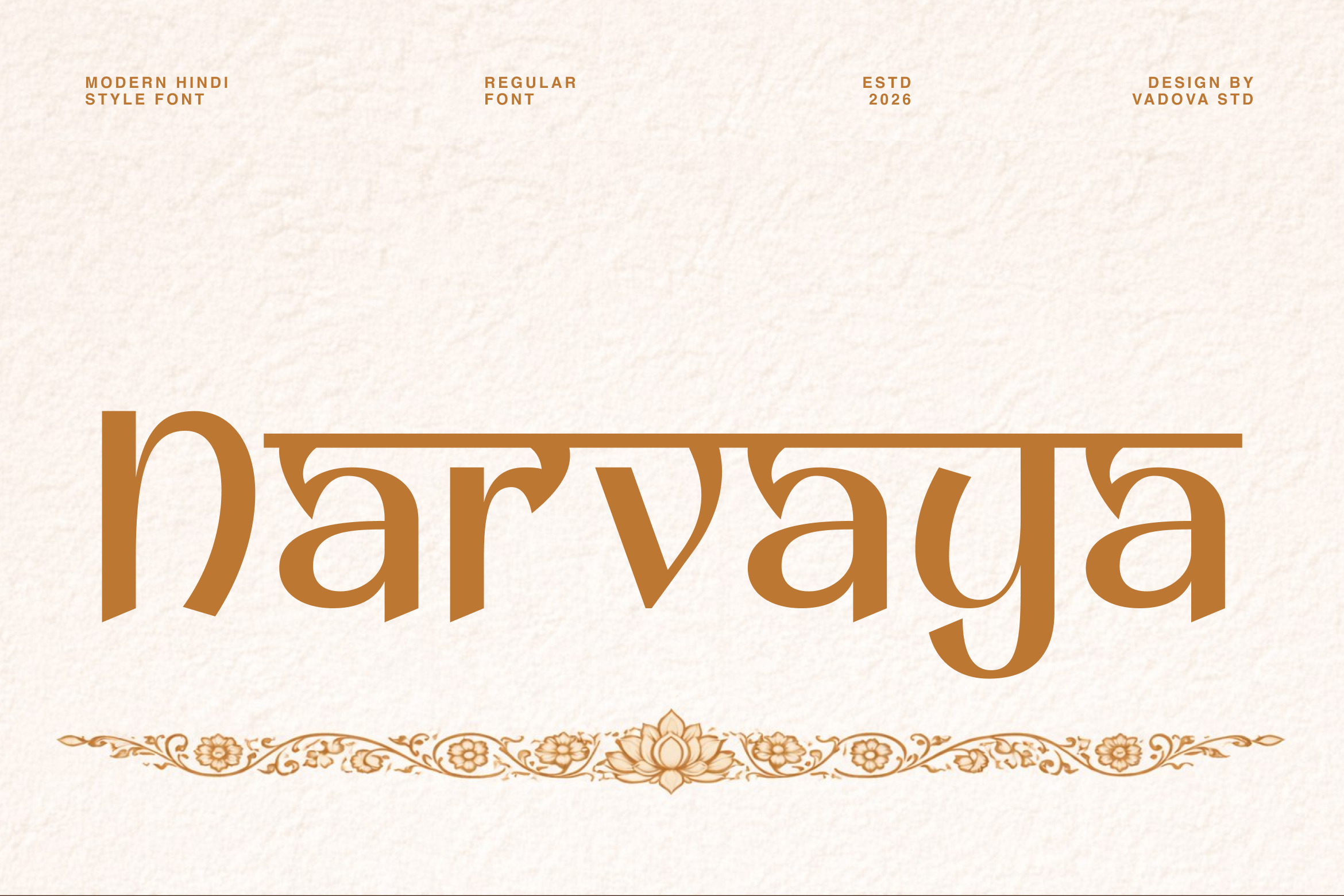
Narvaya Modern Hindi Style Font
Narvaya is a modern serif font inspired by Hindi typographic forms, blending cultural character with a clean contemporary structure. The design features distinctive horizontal headline elements, unique letter constructions, and refined serif details that create a strong visual identity. It includes uppercase, lowercase, numerals, punctuation.
Narvaya is highly relevant for design projects that aim to combine cultural identity with modern aesthetics. It works well for branding, packaging, editorial layouts, and visual campaigns that highlight heritage-inspired visuals with a contemporary touch. The distinctive headline and ornamental serif style make it especially effective for logos, posters, and display compositions that need a unique and memorable typographic presence.
- Distinctive Hindi-inspired serif structure with a continuous headline
- Subtle calligraphic influence blended with modern serif proportions
- Sharp yet smooth stroke transitions creating a refined and cultural aesthetic
- Unique character shapes with ornamental cuts for a distinctive identity
- Balanced spacing and rhythm optimized for display headlines, cultural typography use
- Cultural and heritage-inspired brand identity systems with a distinctive character
- Editorial layouts and posters with an artistic and expressive typographic style
- Event designs such as festivals, weddings, and traditional celebrations
- Product packaging with a unique cultural and decorative aesthetic
- Social media visuals and creative campaigns with a bold and artistic presence